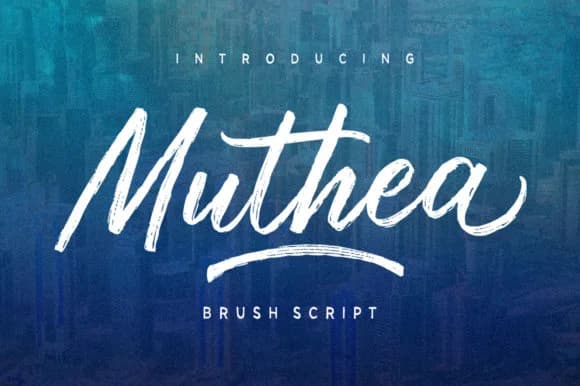
Muthea by Discipline is a brushed handwritten script with a dynamic irregular baseline that brings authentic character and movement to design work. The font's textured, paint-like quality creates visual depth and organic appeal, making it particularly effective for applications where personality and handcrafted aesthetics matter. Whether you're developing custom wedding invitation suites that demand visual distinction, designing book covers that command shelf presence, creating boutique apparel labels, or crafting personalized greeting card artwork, Muthea's organic imperfections operate as design strengths rather than limitations. The irregular baseline also excels in packaging design contexts where brands aim to convey artisanal or handcrafted values, and it brings authentic personality to stationery systems and quote graphics intended for social sharing.
Beyond these specific applications, the font's distinctive brushed quality makes it remarkably versatile for logo work, branding materials, and editorial design where traditional letterforms feel too formal or generic. The handmade aesthetic registers clearly across different scales, ensuring legibility never compromises character. Whether deployed prominently as a headline typeface or used sparingly as an accent in layered compositions, Muthea maintains strong visual presence and immediately communicates creative intent. Discover this distinctive script on Creative Fabrica to see how its textured, dynamic character can enhance your design projects.
- Elegant, Flowing, Muthea
Muthea Font is a script font that shines as a display or heading face. Pair it with a clean sans-serif or serif font for body text β the contrast creates a clear hierarchy while the two styles stay balanced and easy to read.
Muthea Font
by Discipline